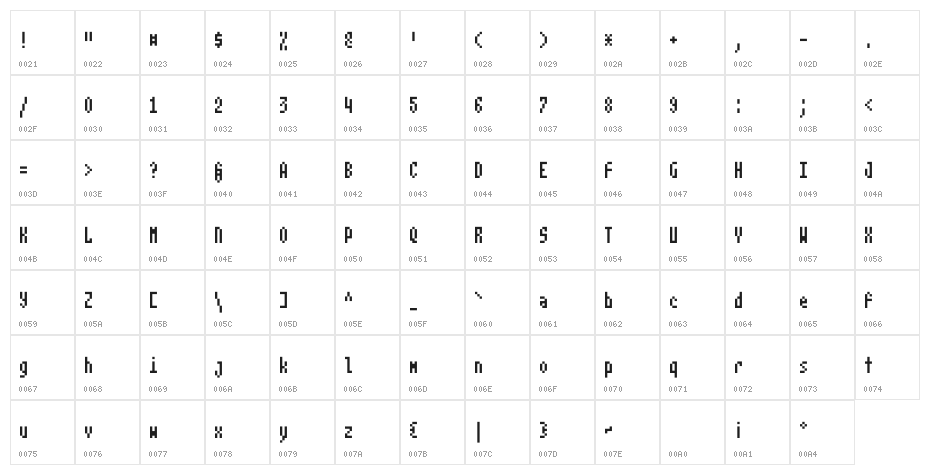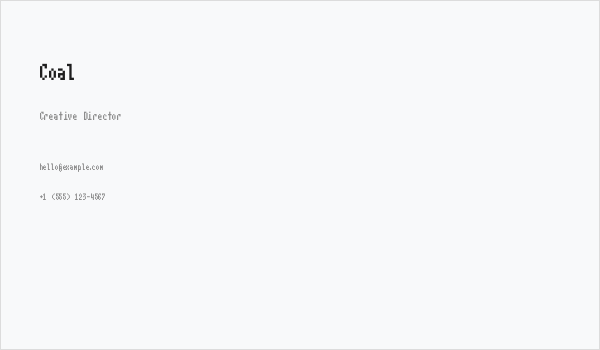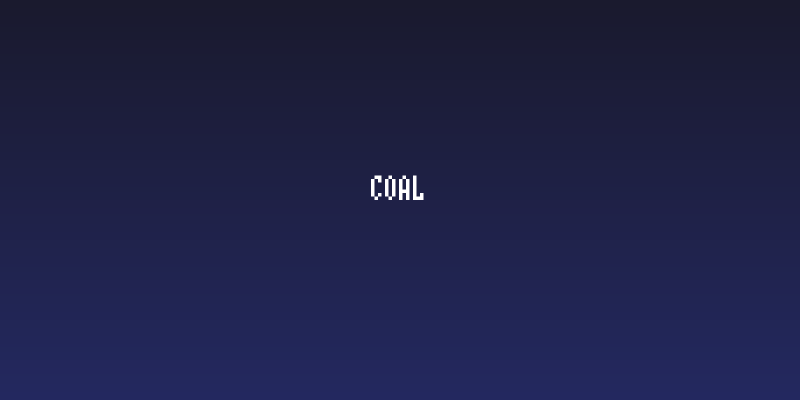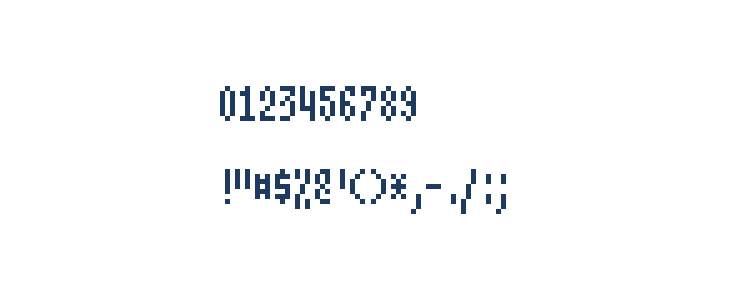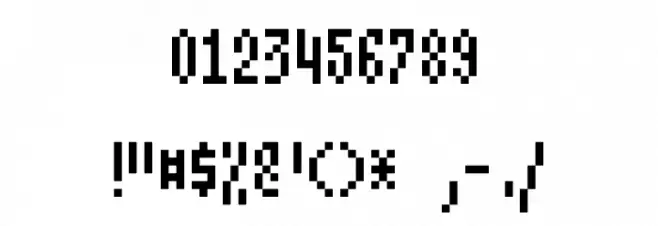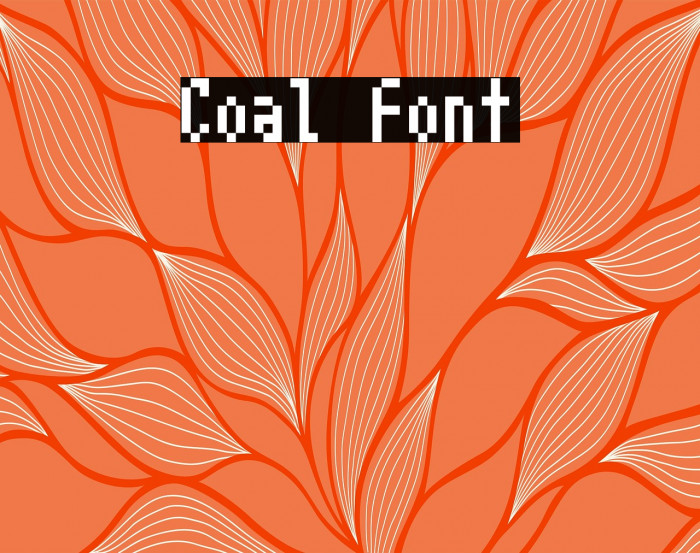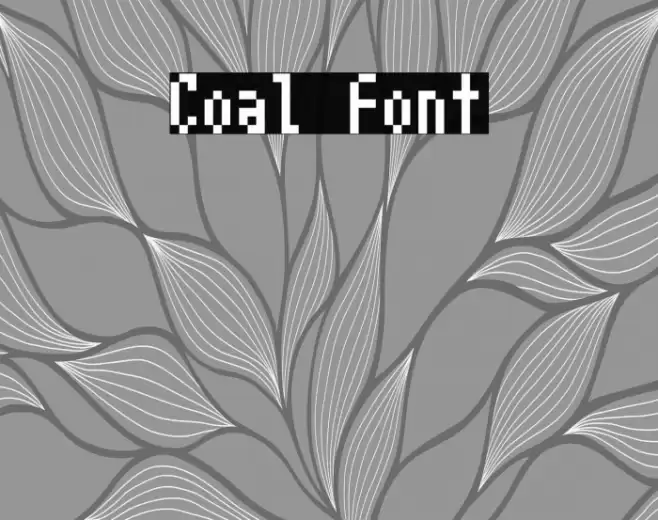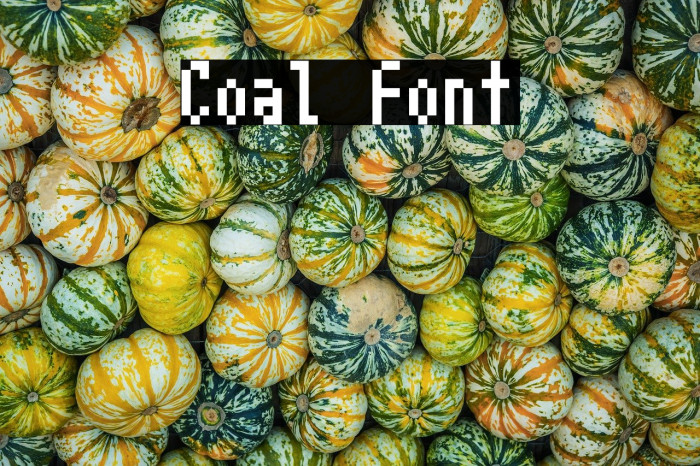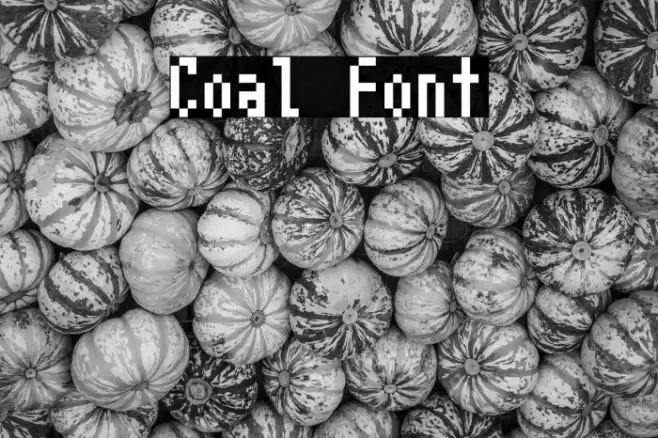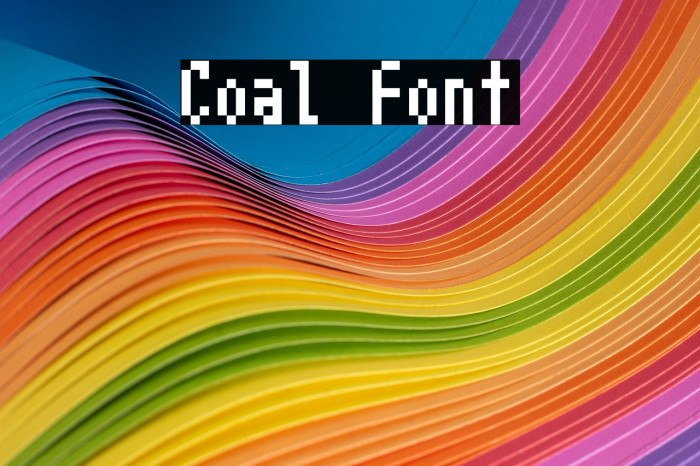
Coal Font
Coal Description
This font exhibits a distinct pixelated style reminiscent of early digital displays and retro video games. Each character is constructed with a blocky, grid-like appearance, emphasizing a strong geometric form. The uppercase and lowercase letters maintain a consistent height, contributing to a uniform and cohesive look. Numbers and special characters follow the same pixelated pattern, ensuring visual harmony across all elements. The font's simplicity and clarity make it highly legible, even at smaller sizes, while its nostalgic aesthetic adds a playful and vintage charm.
| Overall Style | Vintage |
| Proposed Projects | Ideal for retro video game designs, digital-themed posters, and nostalgic branding projects. |